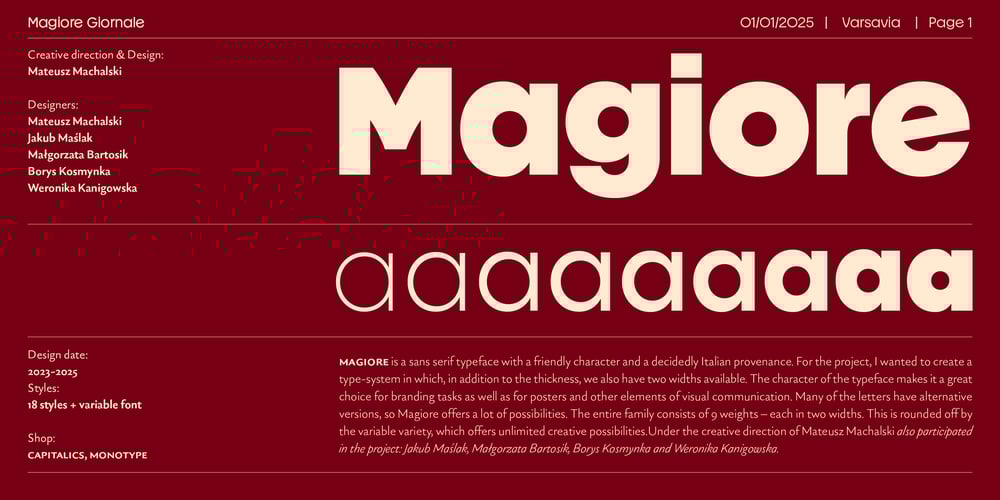
Magiore VF Font Family was designed by Mateusz Machalski and published by Machalski. Magiore VF contains 19 styles and family package options. Magiore is a sans serif typeface with a friendly character and a decidedly Italian provenance. For the project, I wanted to create a type-system in which, in addition to the thickness, we also have two widths available. The character of the typeface makes it a great choice for branding tasks as well as for posters and other elements of visual communication. Many of the letters have alternative versions, so Magiore offers a lot of possibilities. The entire family consists of 9 weights – each in two widths. This is rounded off by the variable variety, which offers unlimited creative possibilities.Under the creative direction of Mateusz Machalski also participated in the project: Jakub Maślak, Małgorzata Bartosik, Borys Kosmynka & Weronika Kanigowska